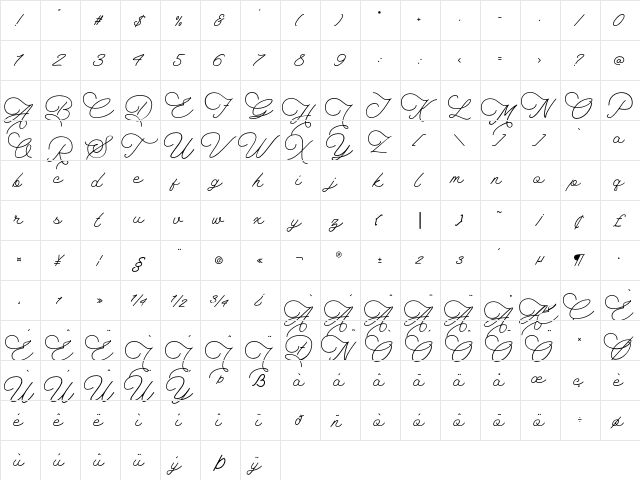
The Saily Regular
| Foundry | Stringlabs Studio |
Design Context for The Saily Typeface
The Saily is a composed and adaptable typeface that performs quietly and consistently across a wide range of design contexts.